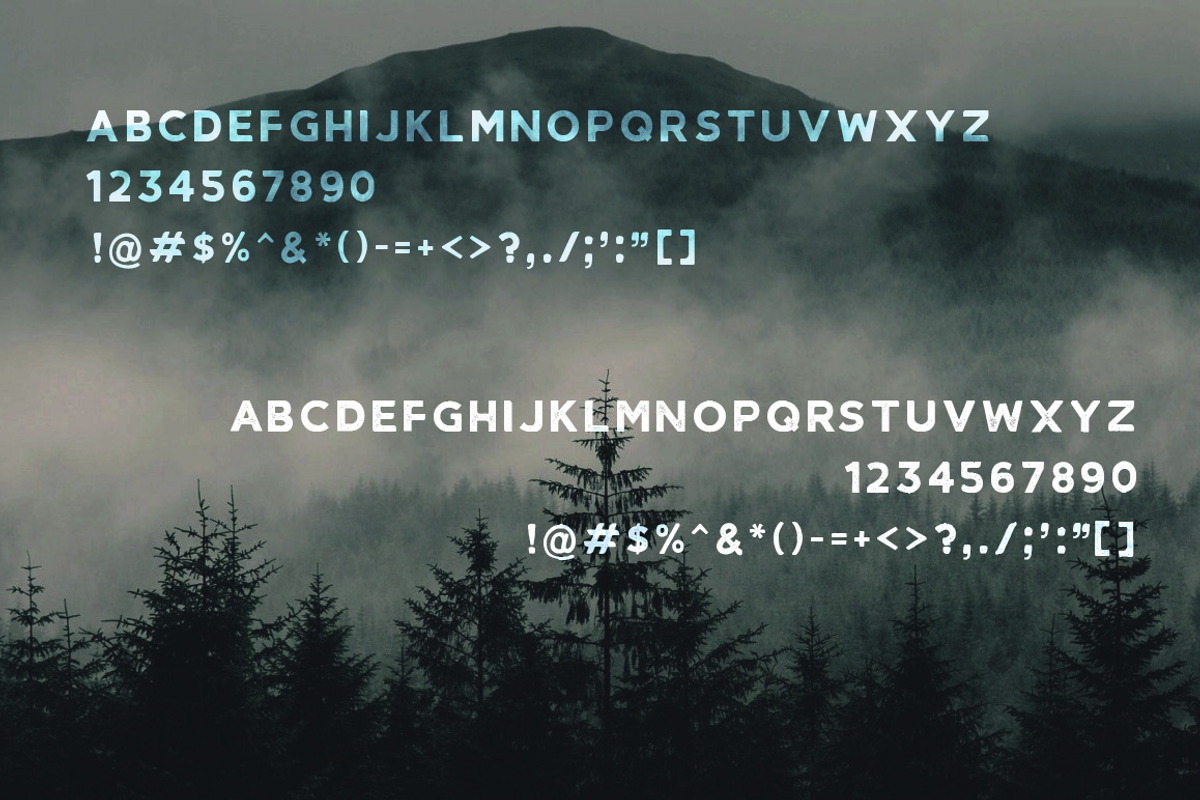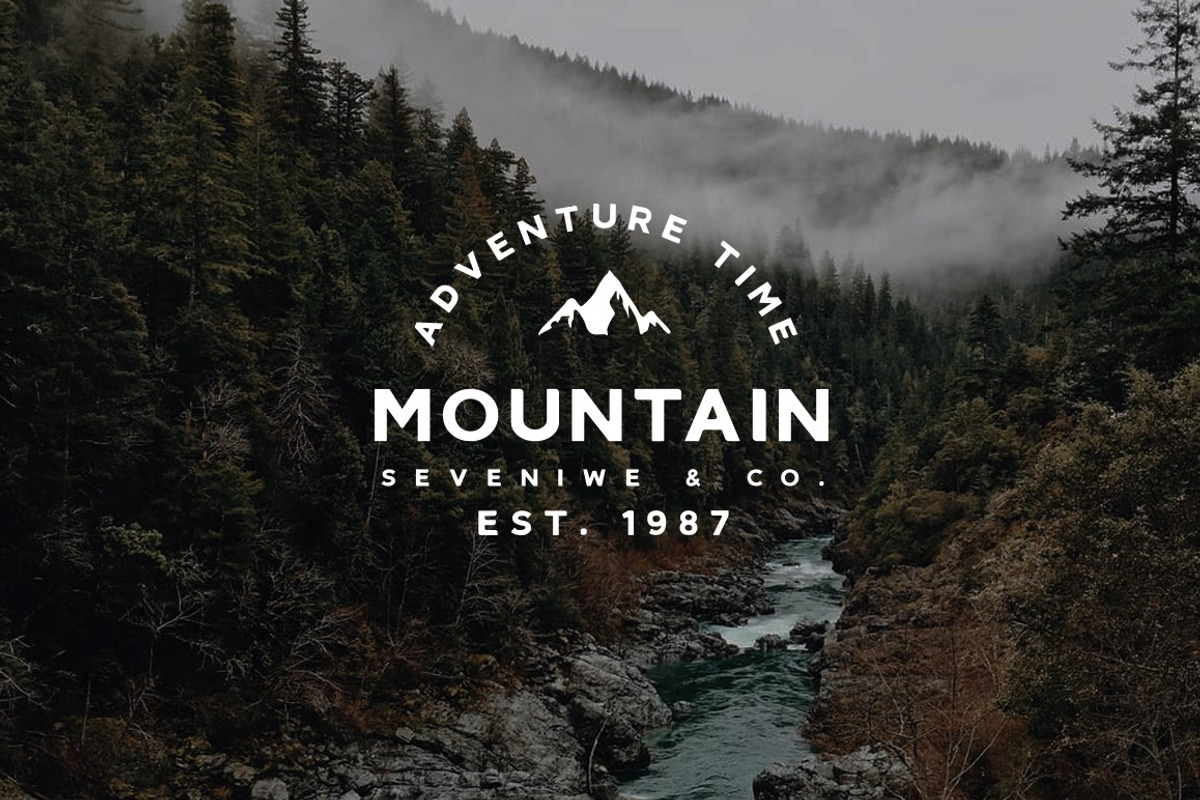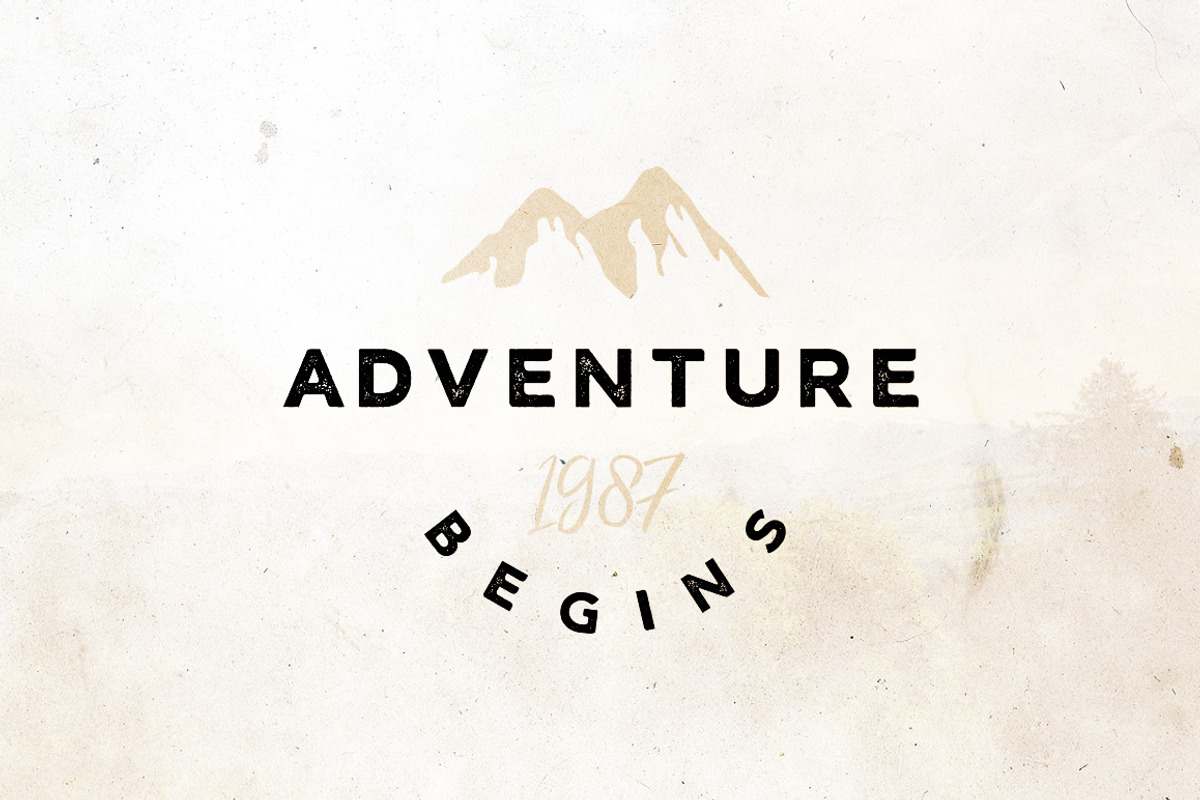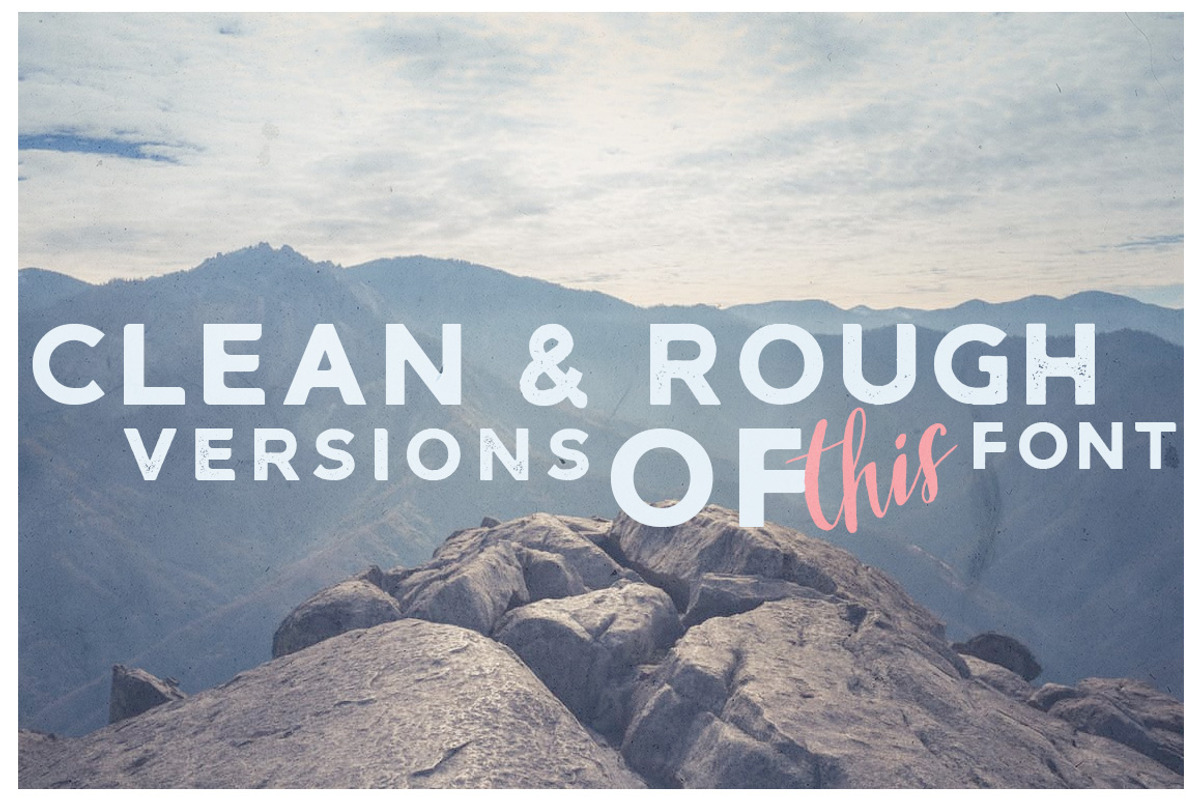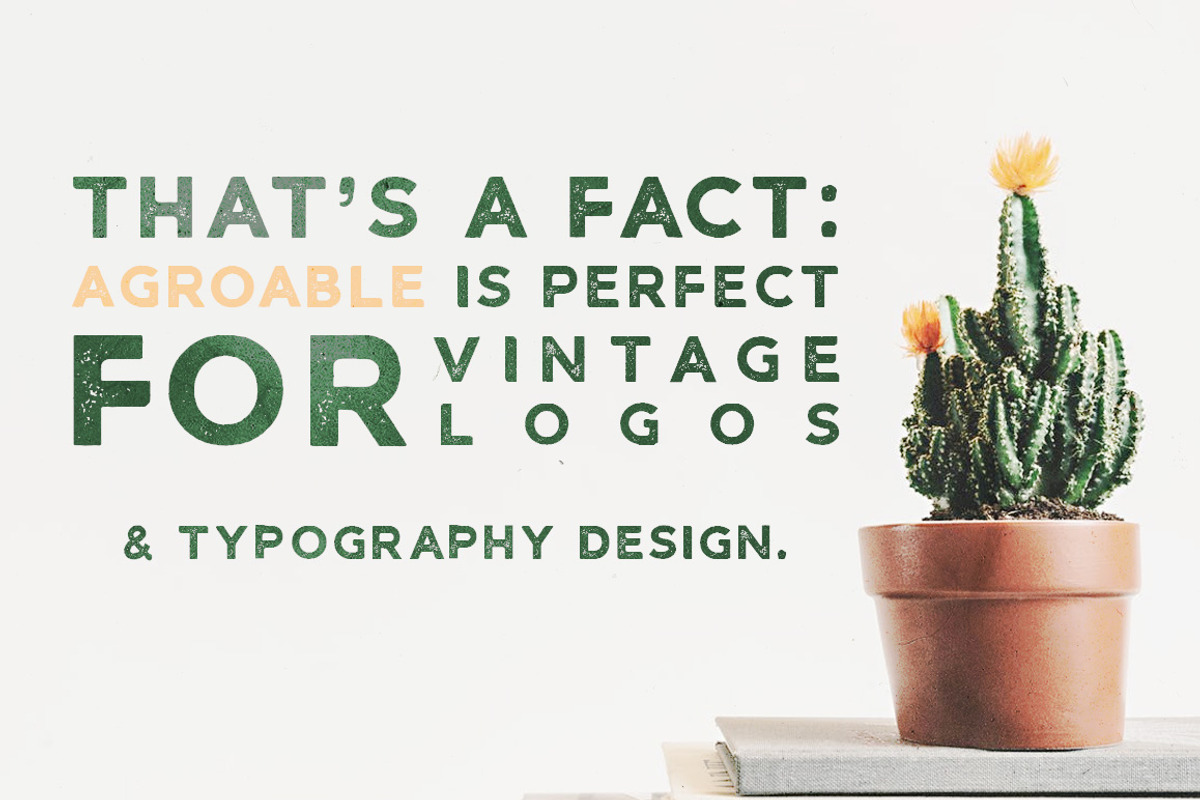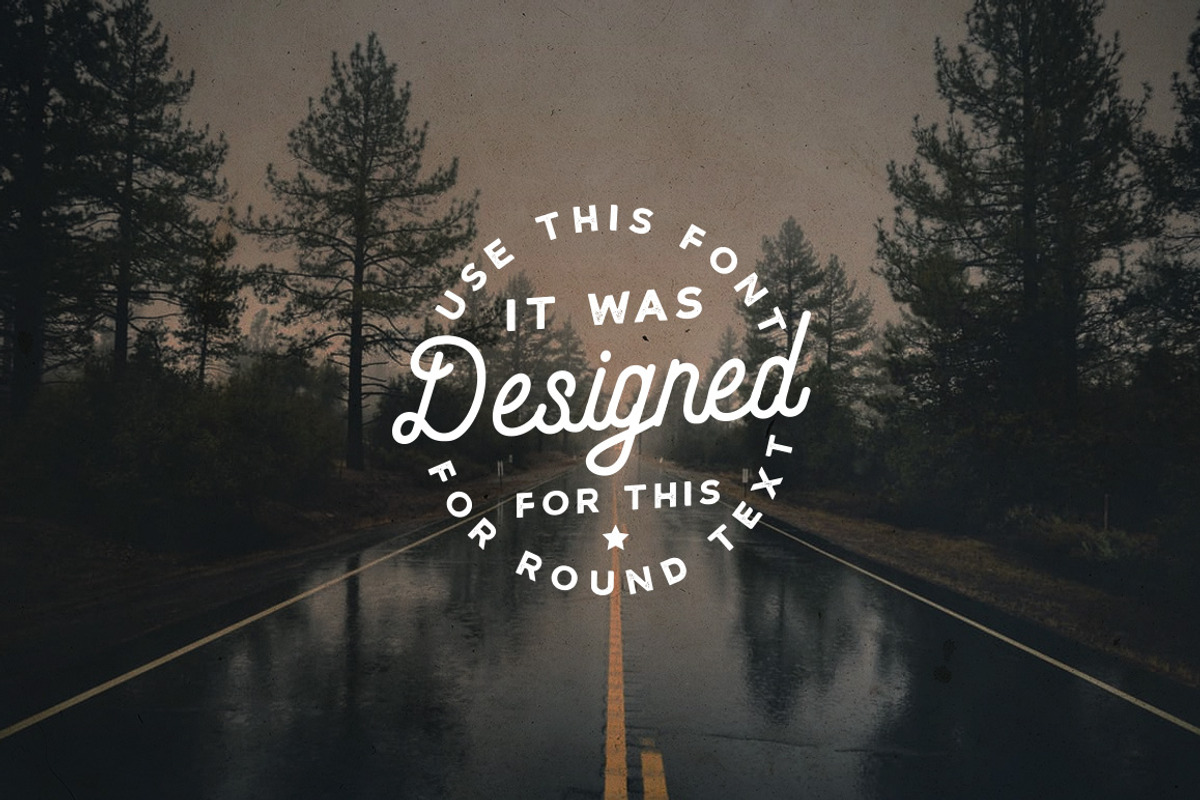
Agroable - Clean & Rough Font
Agroable - vintage sans serif font in two versions: clean and rough with little gritty effect. Font is perfect for designing vintage logotypes, badges, labels. It may be used as "main" font in logotype (big text in a center of logo), and as a secondary font (for example, the text around the logo with the secondary information). Make your own retro logo with this font and enjoy the result!
However, the use of this font is not limited to just logos. It's also suitable for t-shirt prints, business cards, flyers, posters, ads, restaurant menus, signs, typography design, quotes and any graphic design.